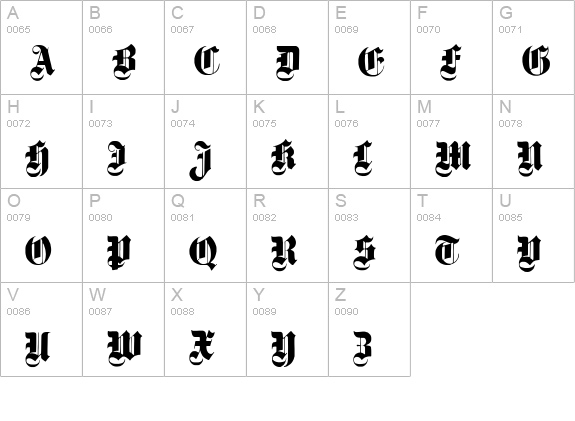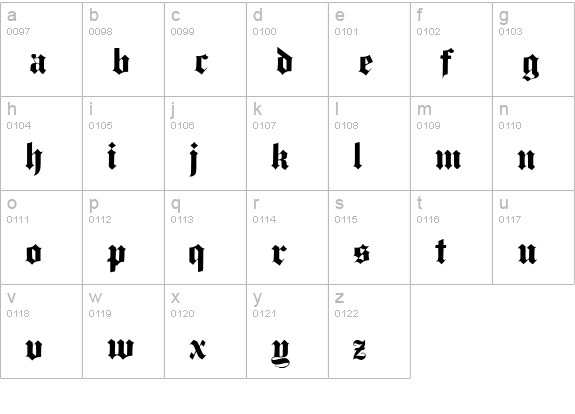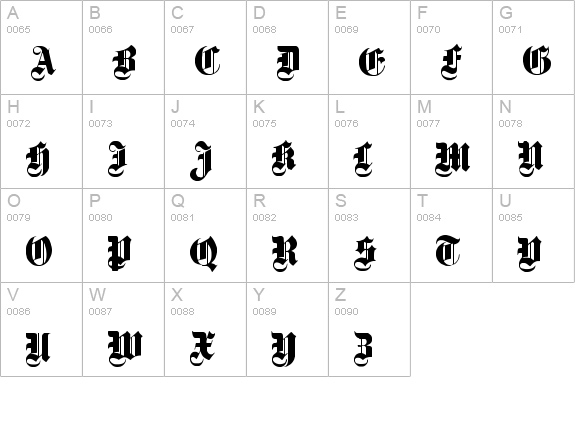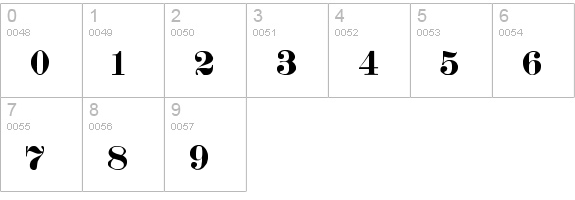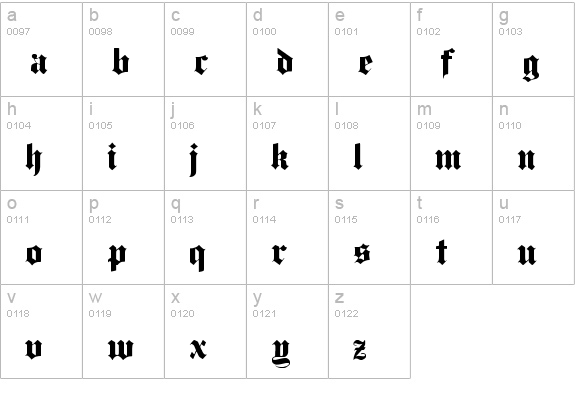
Dampfplatz Solid Black is a maximum-weight, dramatic variant in the Dampfplatz typeface family \xE2\x80\x94 well suited to maximum-impact headlines, posters, and packaging.
Dampfplatz Solid Black font is a stunning and bold typeface that exudes a sense of strength and power. Its solid black design gives it a distinctive and impactful presence, making it perfect for headlines, posters, and other attention-grabbing designs. With its clean and sharp lines, Dampfplatz Solid Black font is highly versatile and can be used in a variety of creative projects. Whether you're designing a logo for a high-end brand, creating a striking graphic for a magazine layout, or crafting a sleek website interface, this font is sure to make a lasting impression. What sets Dampfplatz Solid Black font apart is not just its striking aesthetic, but also its accessibility. This font is available for free download at FontsMarket.com, making it easily accessible to designers and creatives around the world. With just a few clicks, you can have this powerful font at your fingertips, ready to elevate your designs to new heights. In addition to its captivating appearance and free availability, Dampfplatz Solid Black font also offers excellent legibility. Each letter is meticulously crafted to ensure readability, even at smaller sizes. This makes it a great choice for body text in editorial designs or for adding a touch of sophistication to your typography. Whether you're a professional designer or a hobbyist, Dampfplatz Solid Black font is a valuable addition to your font library. Its bold and impactful style, combined with its free availability, makes it an essential tool for creating visually striking and memorable designs. Download Dampfplatz Solid Black font today and unleash your creativity like never before.